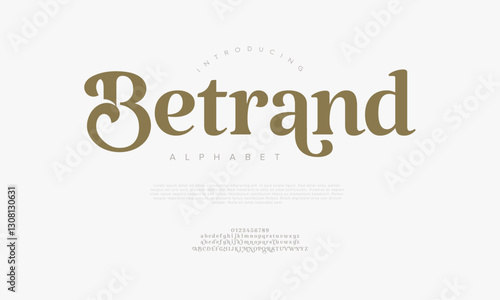
Betrand Elegant Font Uppercase Lowercase And Number. Classic Lettering Minimal Fashion Designs. Typography modern serif fonts regular decorative vintage concept. vector illustration